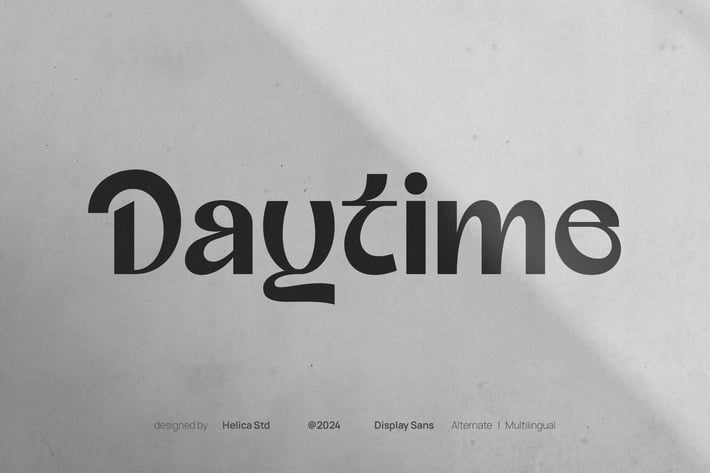
Daytime Display Sans Font
Daytime Display Sans Font typeface is perfect for crafting elegant quotes, stunning logos, captivating magazine headers, and so much more.
Ligatures & Alternate
Numeral & Punctuations